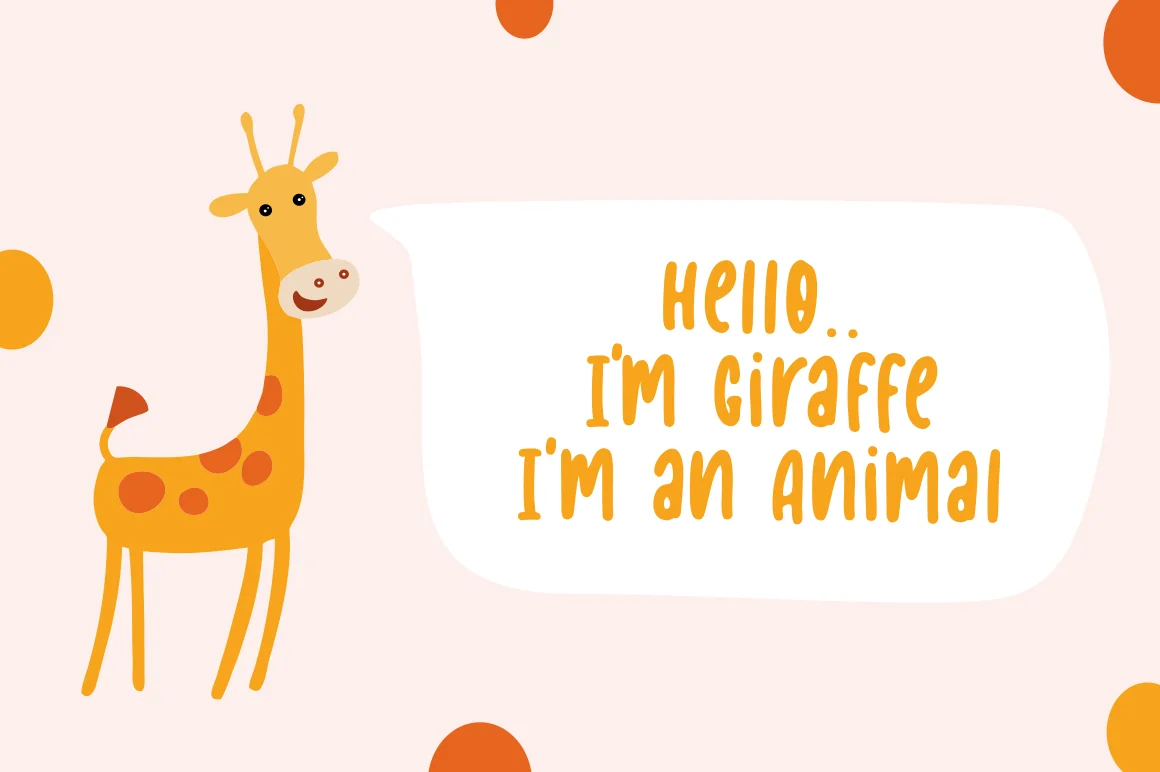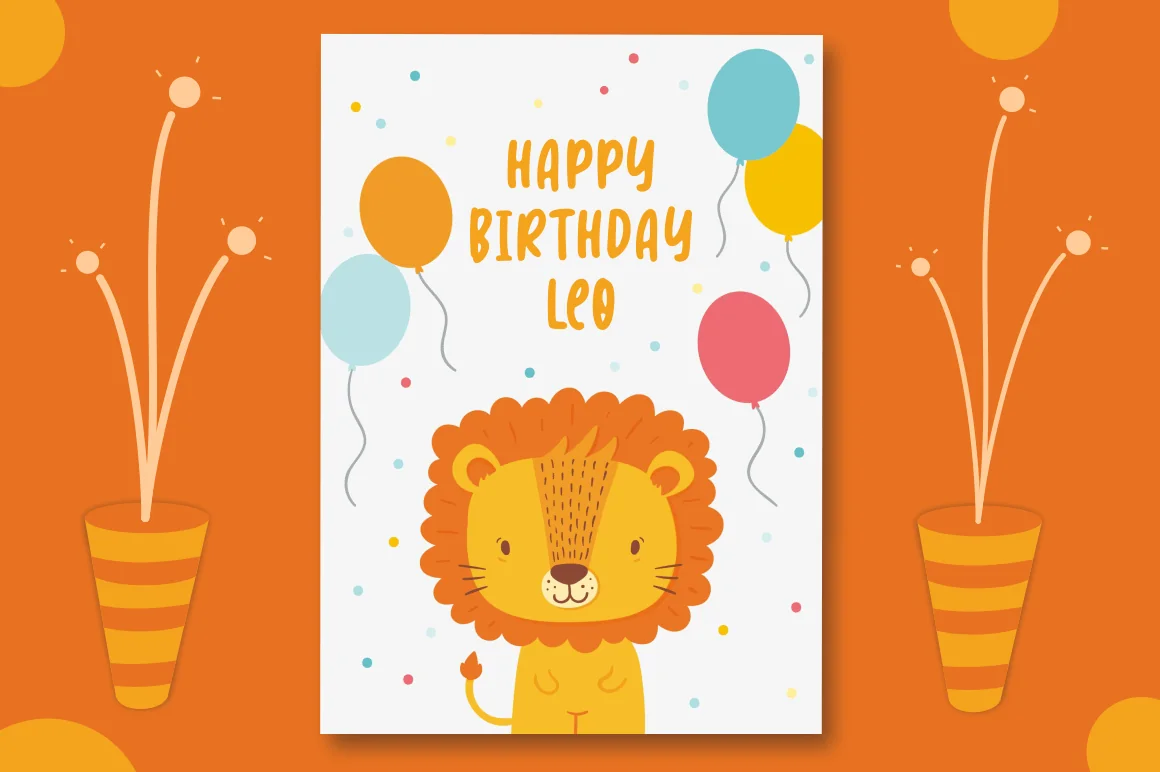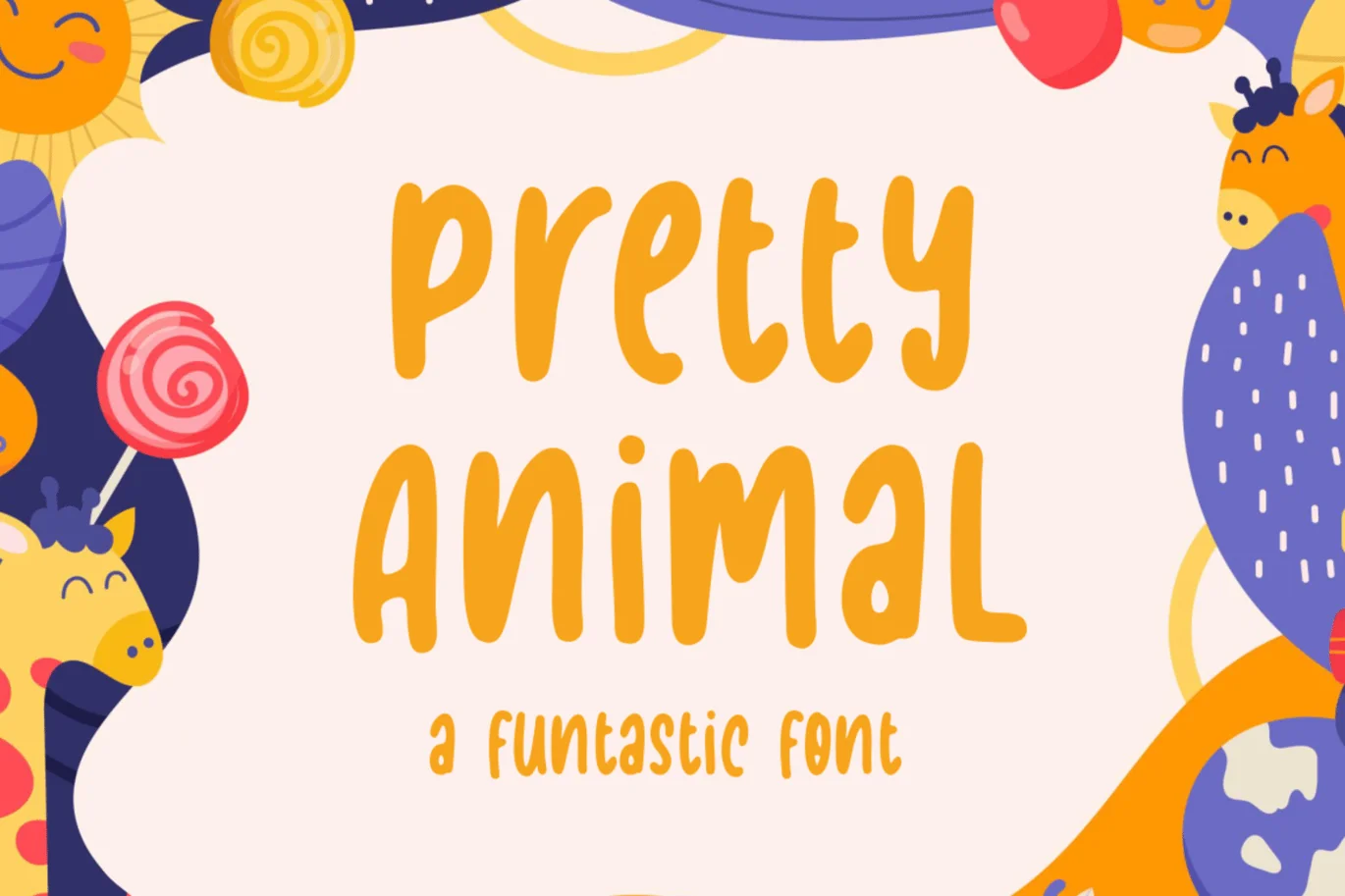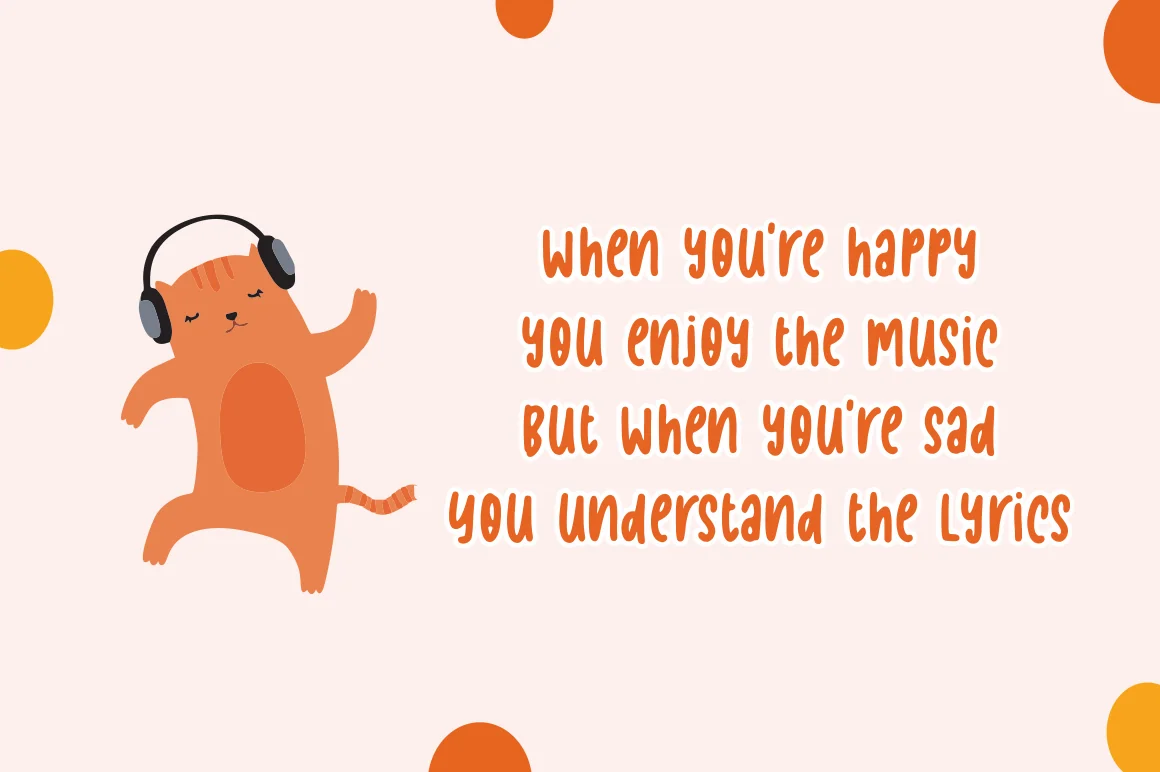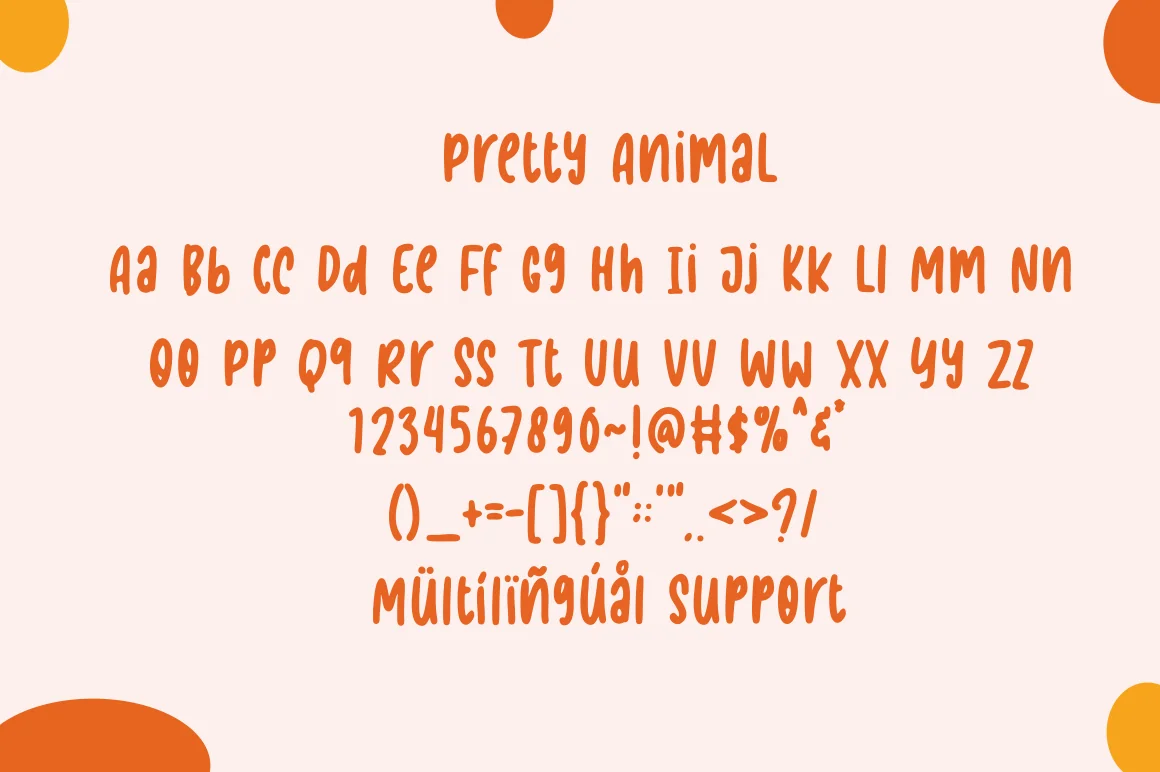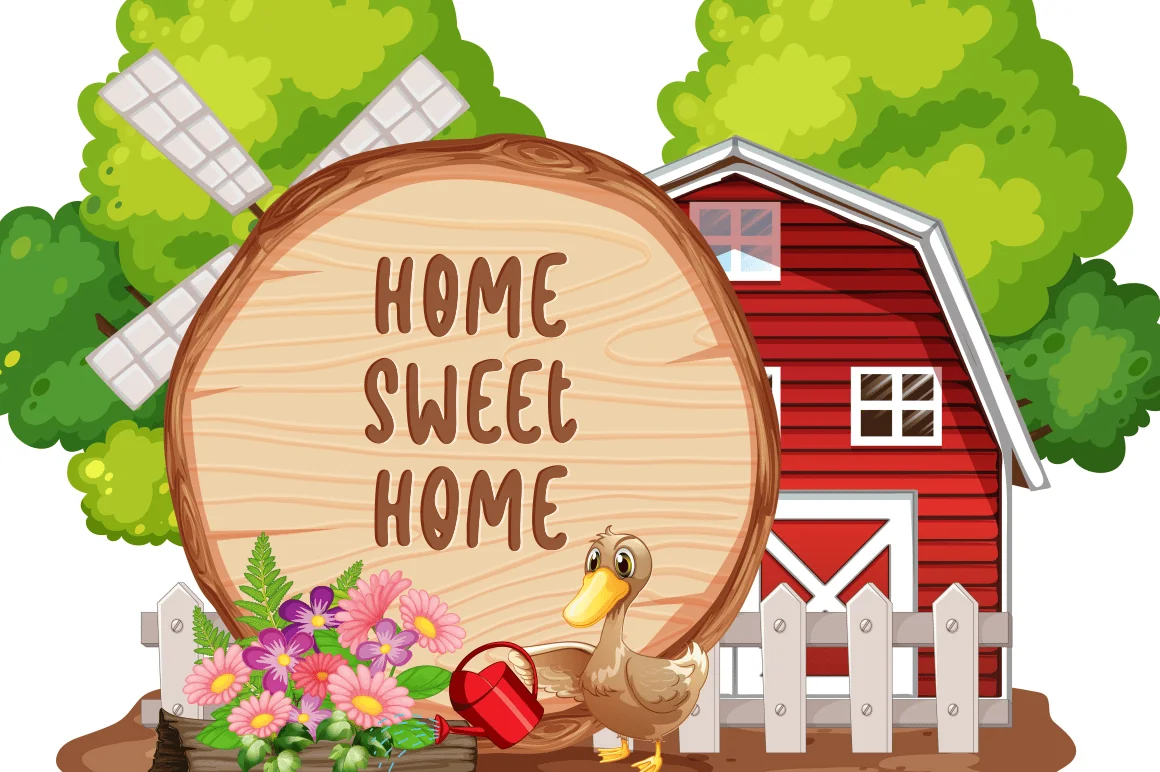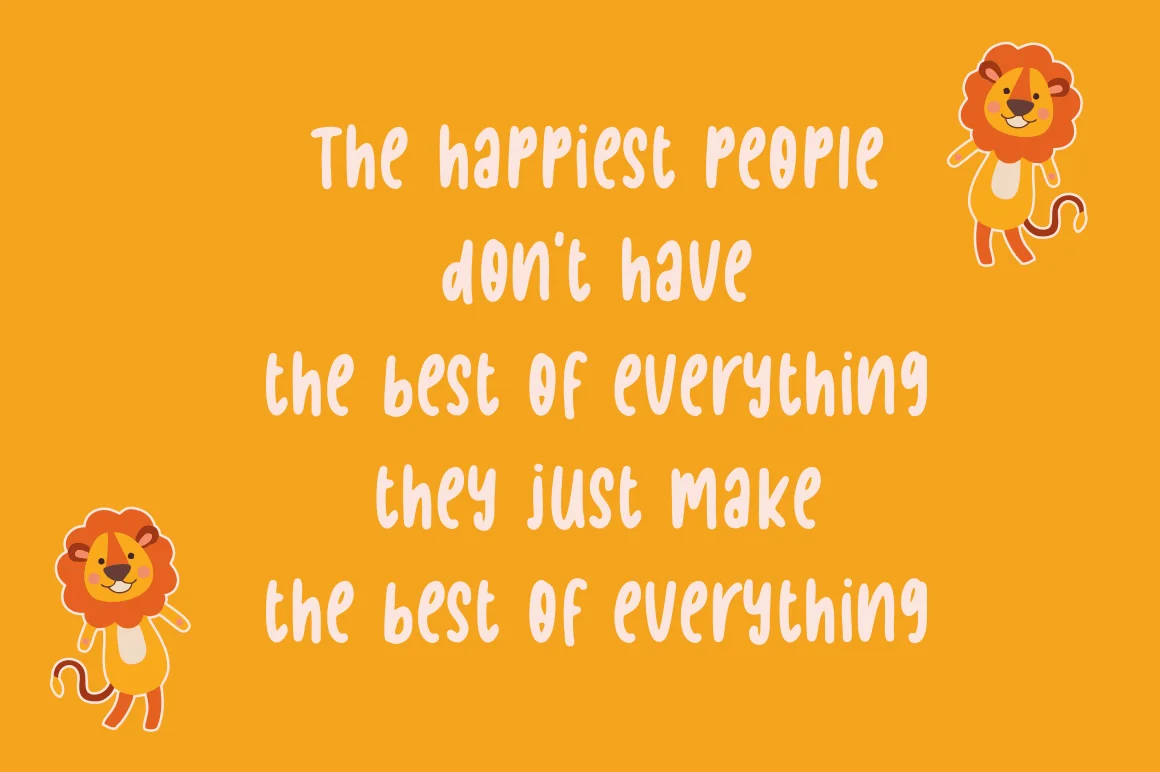
Pretty Animal – Cute Handwritten Font
Pretty Animal is a handwritten font, this font Is perfect for logo, social media posts, advertisements, product packaging, product designs, label, photography, watermark, special events or anything.
Pretty Animal comes with uppercase and lowercase letters, multilingual symbols, numerals, punctuation.